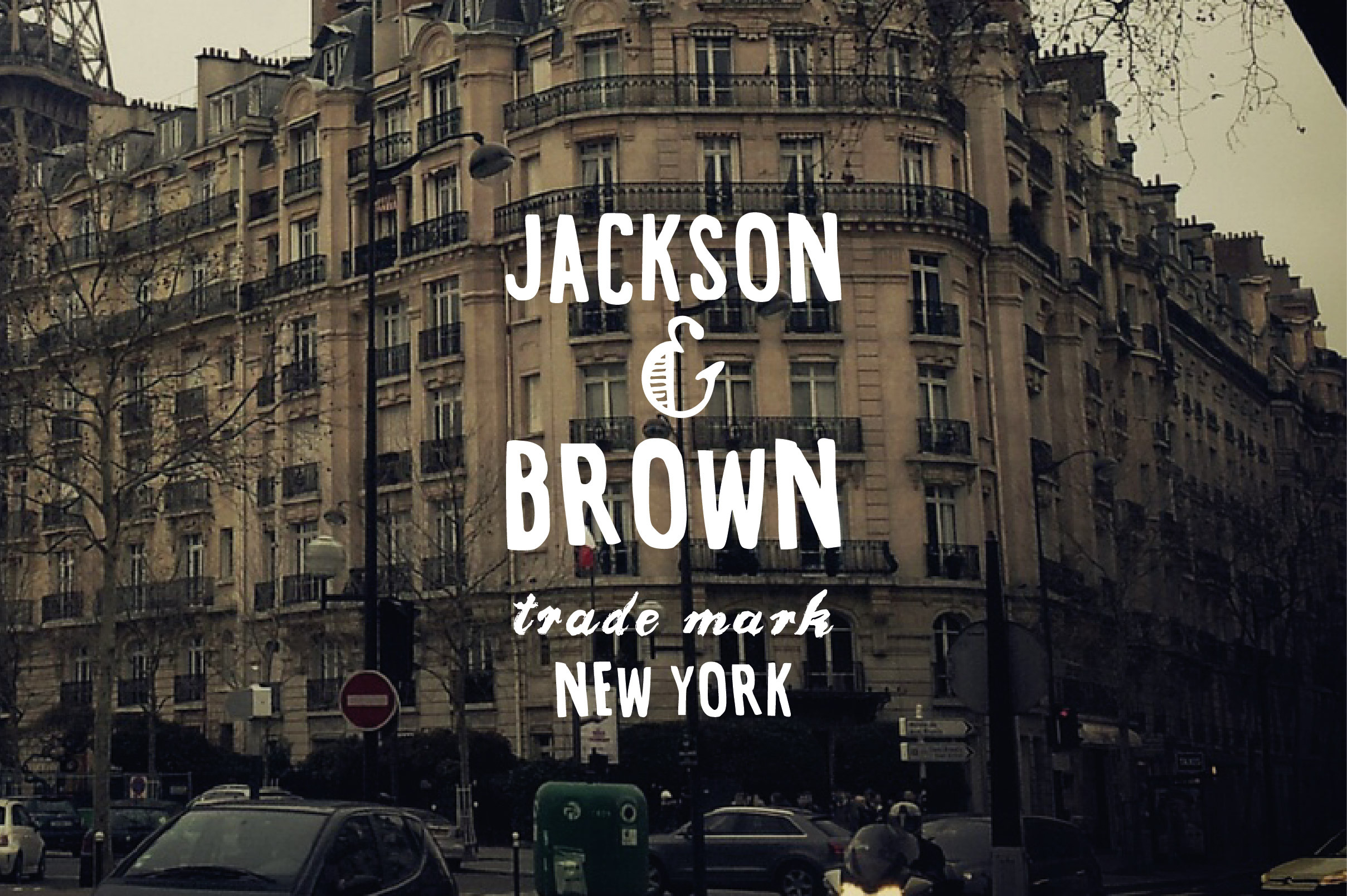
Vintage-Inspired Font- "NET WT"
This all caps font was inspired by the typography on vintage potato sacs. Perfectly imperfect, this hand drawn font will add a vintage flair to your projects. *Please note: this font features the letter A-Z in caps lock only. It does not feature numbers and punctuation at this time.